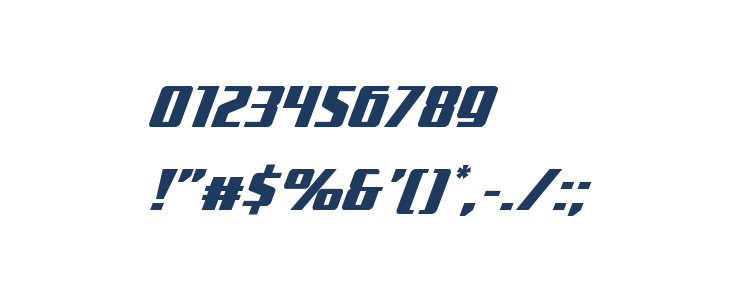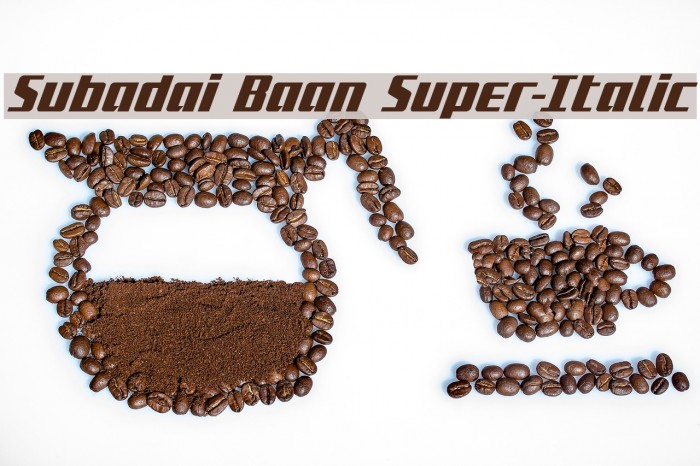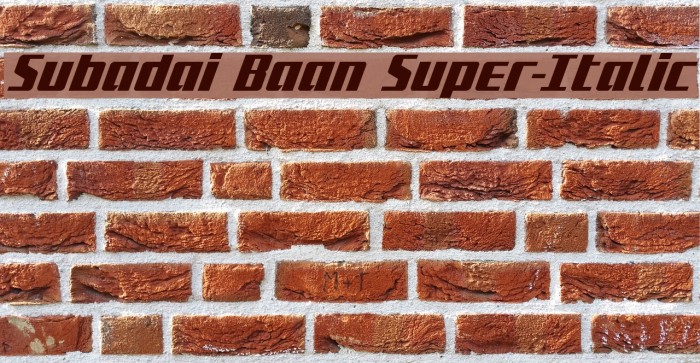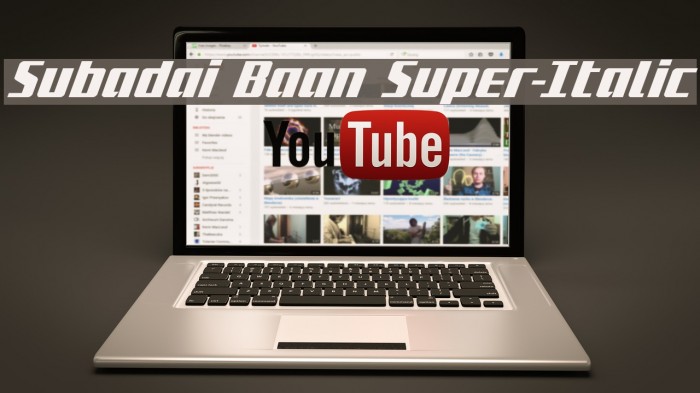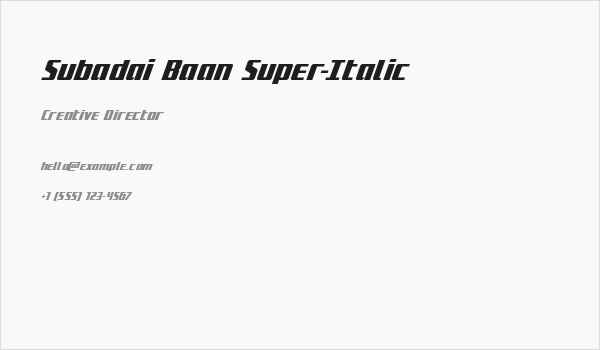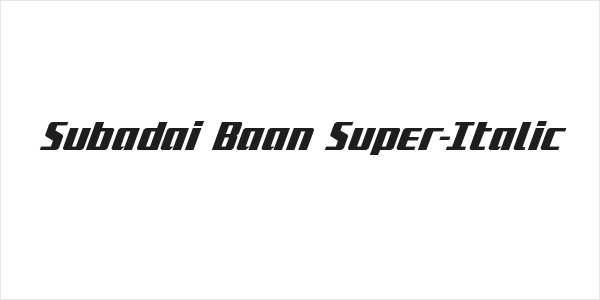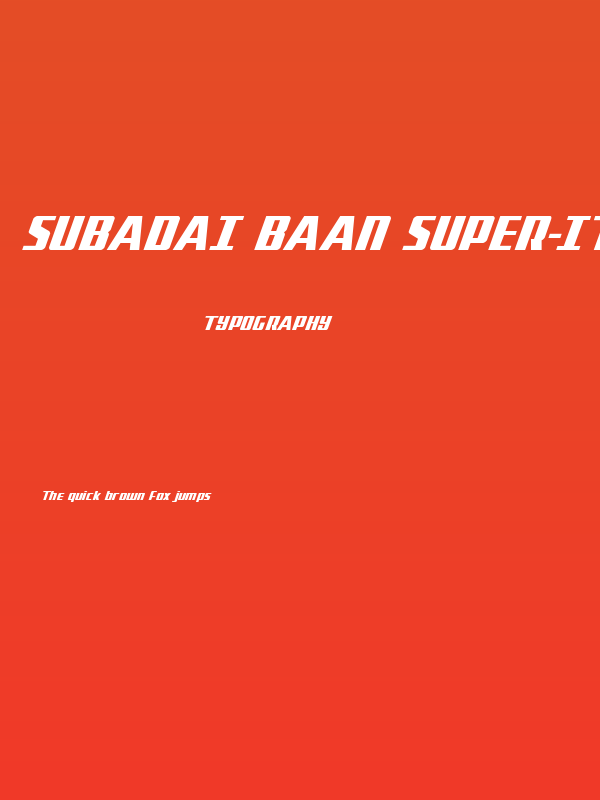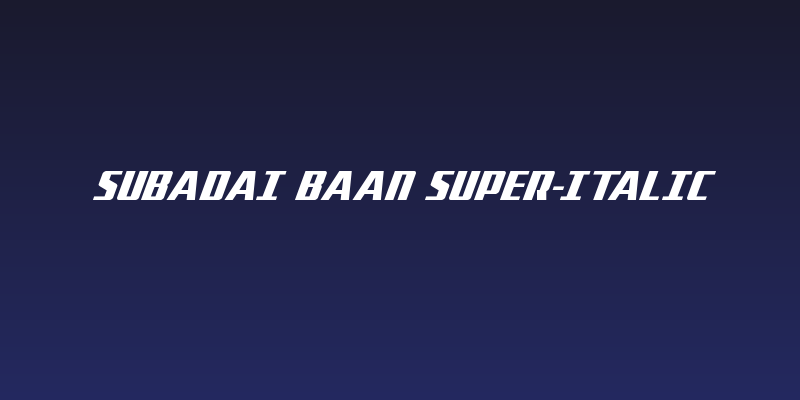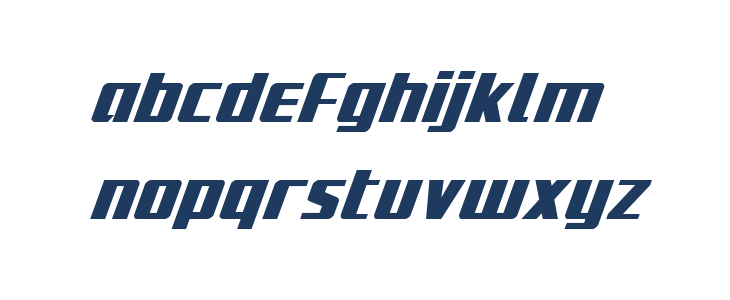
Subadai Baan Super-Italic Font
Subadai Baan Super-Italic Description
This font features a bold and dynamic design with a strong italic slant, giving it a sense of motion and energy. The characters are sharply defined with angular cuts and a modern aesthetic. The uppercase and lowercase letters maintain a consistent style, with a slightly condensed width that enhances its sleek appearance. The numerals and special characters are designed to match the overall boldness and angularity, making it suitable for impactful and attention-grabbing text. The font's unique style is ideal for projects that require a modern and assertive look.
Proposed ProjectsIdeal for sports branding, dynamic posters, modern logos, and headlines.